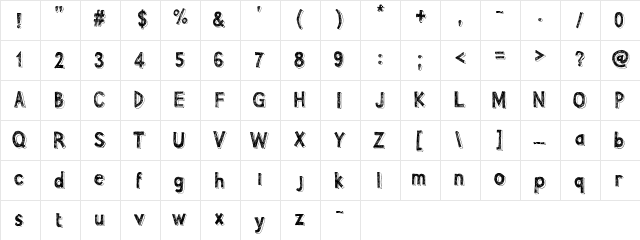
Pointy Solid Pointy Solid
| Foundry | James Beardmore |
| Designer | James Beardmore - Pointy Design |
Design Context for Pointy Solid Typeface
Pointy Solid is a composed and adaptable typeface that performs quietly and consistently across a wide range of design contexts.